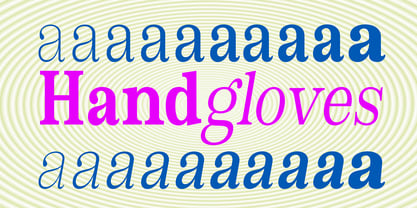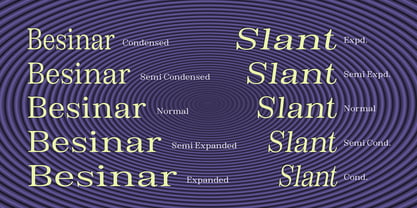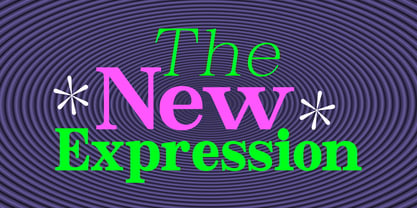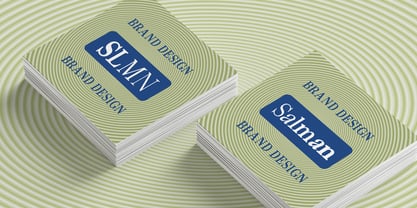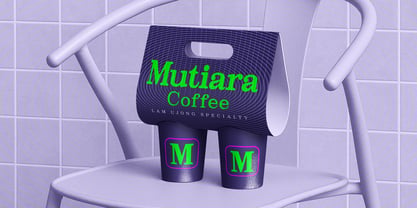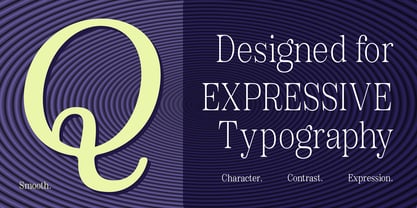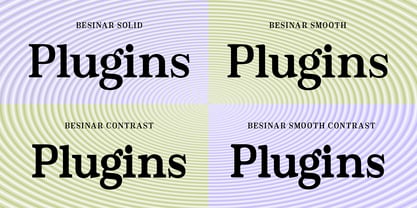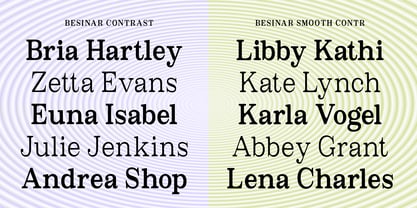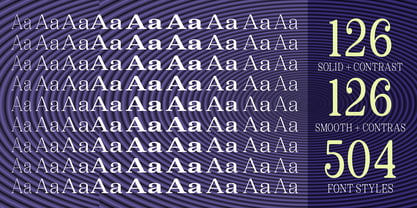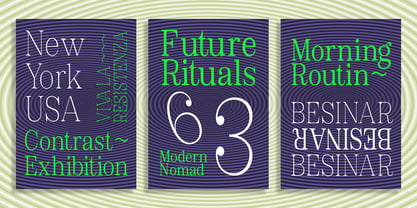
Besinar
by Ajibatype
The Besinar Font Family was designed by Jam Hur and published by Ajibatype. Besinar contains 7 styles. More about this family
Besinar is a versatile serif superfamily designed to deliver a refined balance between classic character and contemporary versatility. With 9 weights and 7 widths, the family offers an extensive range of styles for expressive display typography, editorial layouts, branding, and demanding text applications. Beyond its core styles, the superfamily includes three distinctive variations: Smooth, Contrast, and Smooth Contrast, providing additional personality and flexibility while maintaining a cohesive typographic system. Its carefully crafted forms combine elegant proportions, clear readability, and distinctive serif details across the entire family. The typeface also features Ligatures, along with Extensive international language support, making it suitable for multilingual projects and global branding. From delicate light styles to bold and powerful weights, its broad width selection allows designers to create everything from compact headlines to spacious editorial compositions. Designed as a complete and flexible typographic system, Besinar gives designers the freedom to move seamlessly between timeless sophistication, modern expression, and highly functional typography.
Designers: Jam Hur
Foundry: Ajibatype
Besinar